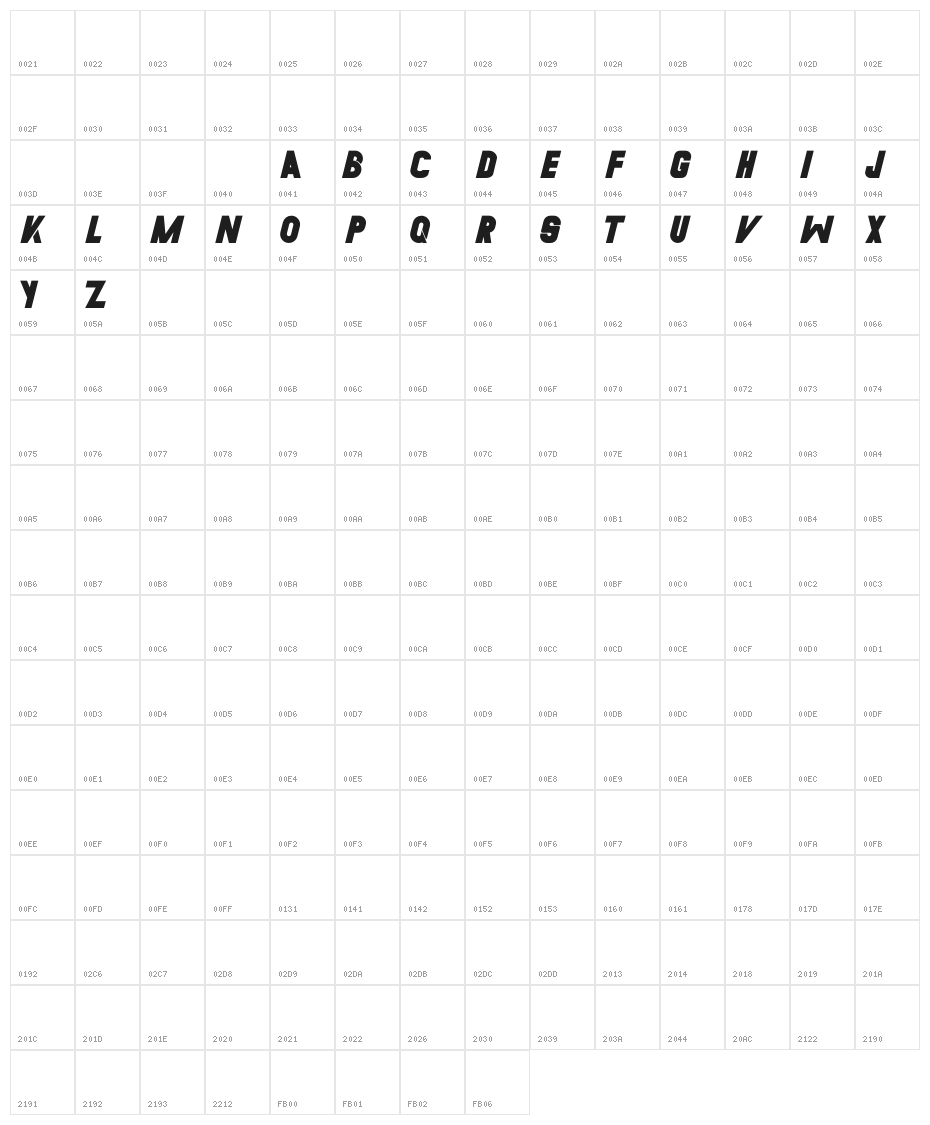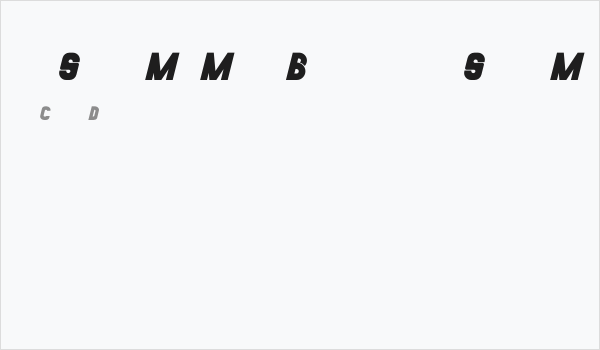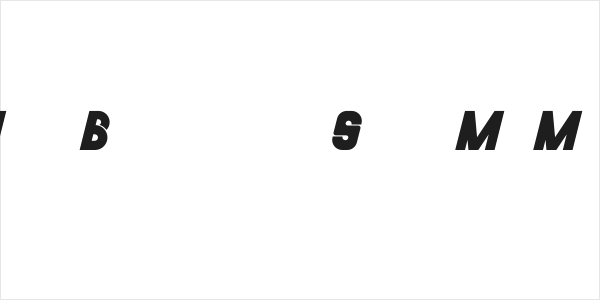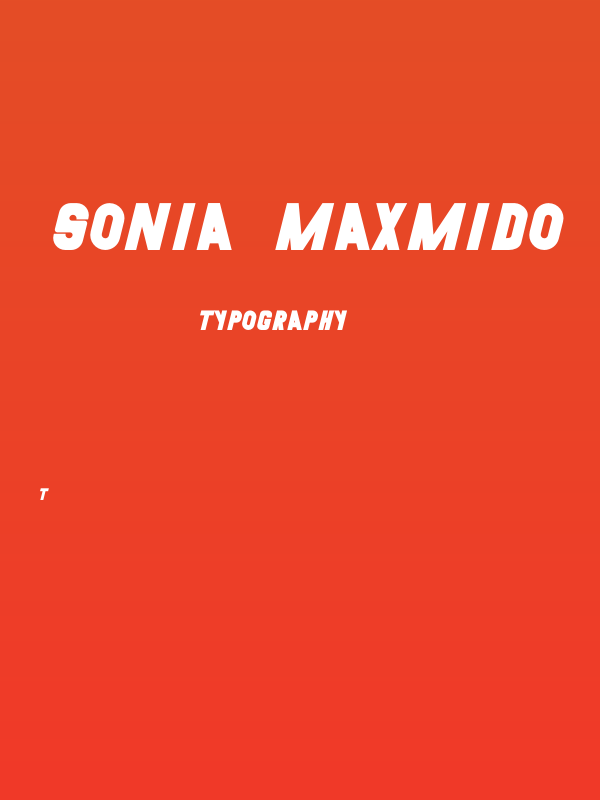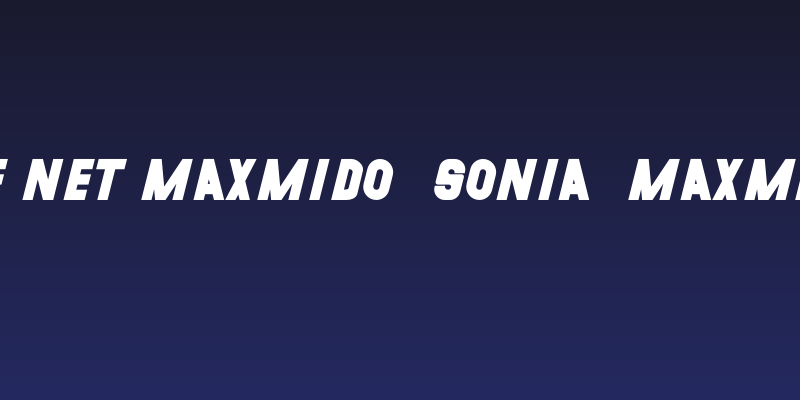
30Sonia _ MaxMido _ Be.net/maxmido 30Sonia _ MaxMido _ Be.net/maxmido Font
30Sonia _ MaxMido _ Be.net/maxmido 30Sonia _ MaxMido _ Be.net/maxmido Description
This font features bold, angular characters with a distinct slant, giving it a dynamic and energetic appearance. The letters are tightly spaced, enhancing the compact and impactful look. The strokes are thick and consistent, providing a strong visual presence. The overall style is modern and assertive, suitable for making a statement. The uppercase letters are particularly striking, with sharp edges and a forward-leaning posture that suggests movement and speed.
| Proposed Projects | Ideal for sports branding, dynamic posters, and attention-grabbing headlines. |